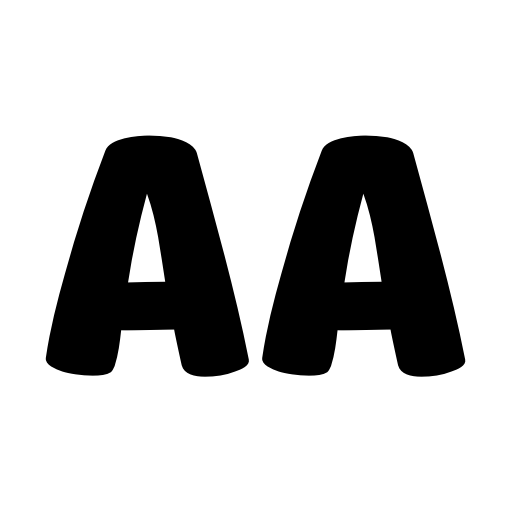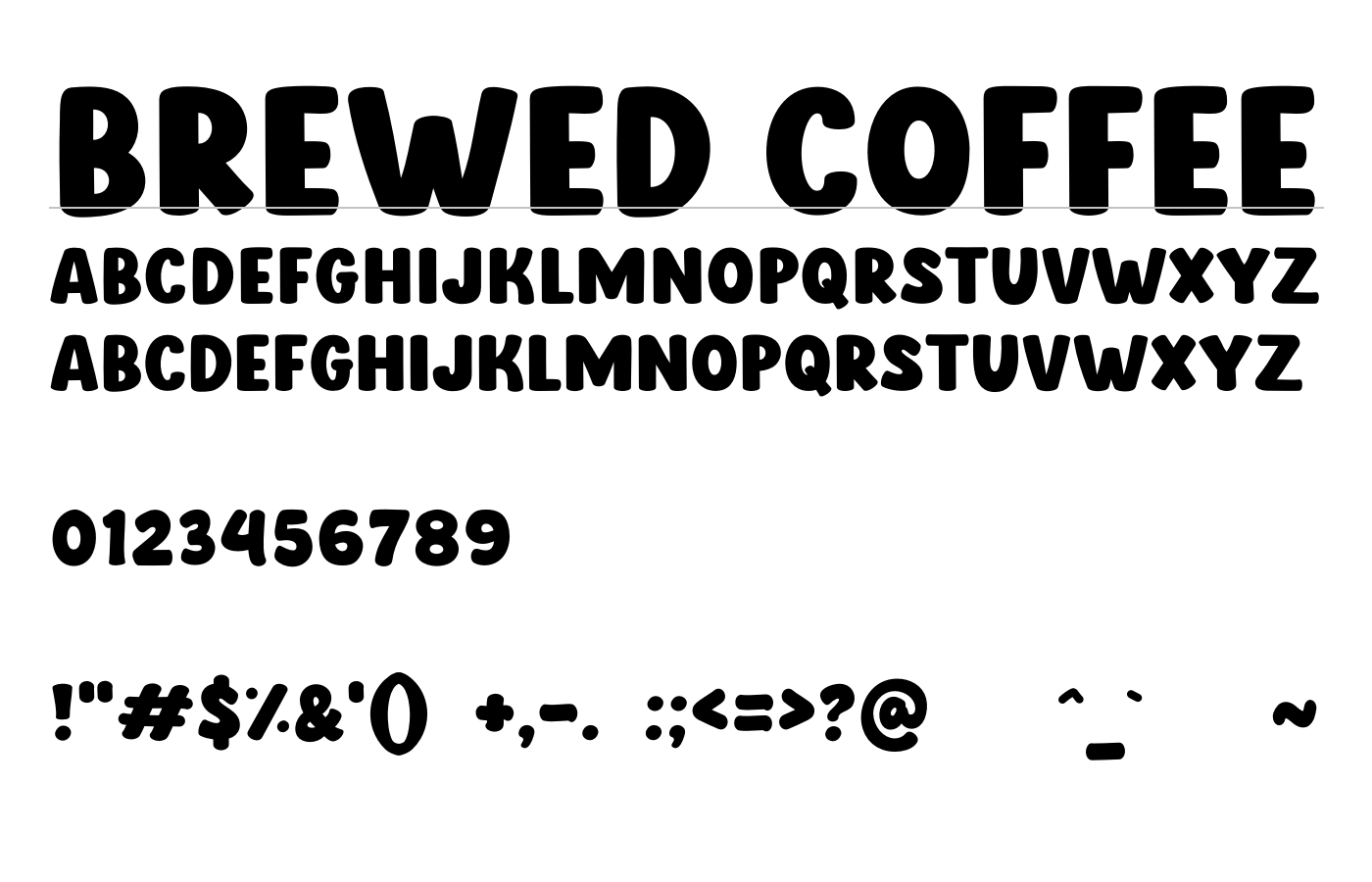
Brewed Coffee is a bold, rounded sans serif font with a friendly and playful character. Its thick, even strokes and slightly irregular shapes give it a casual, approachable feel, making it ideal for branding, packaging, and headlines that want to convey warmth and fun. This font works well in informal, creative contexts where an inviting and cheerful tone is desired.
Brewed Coffee Font
About Brewed Coffee Font